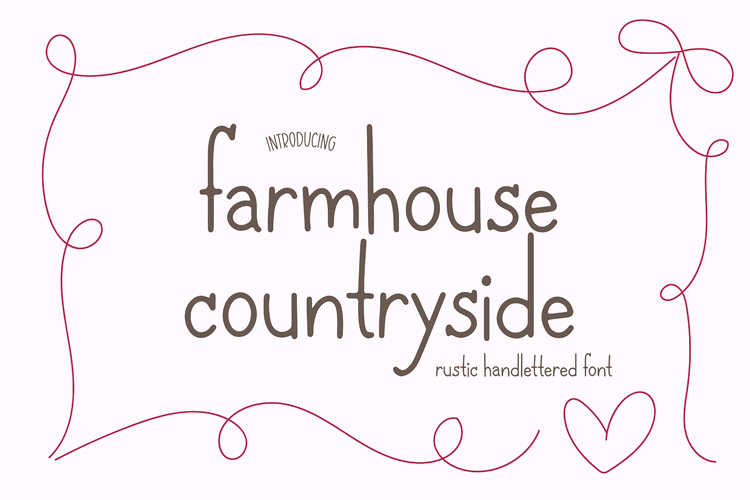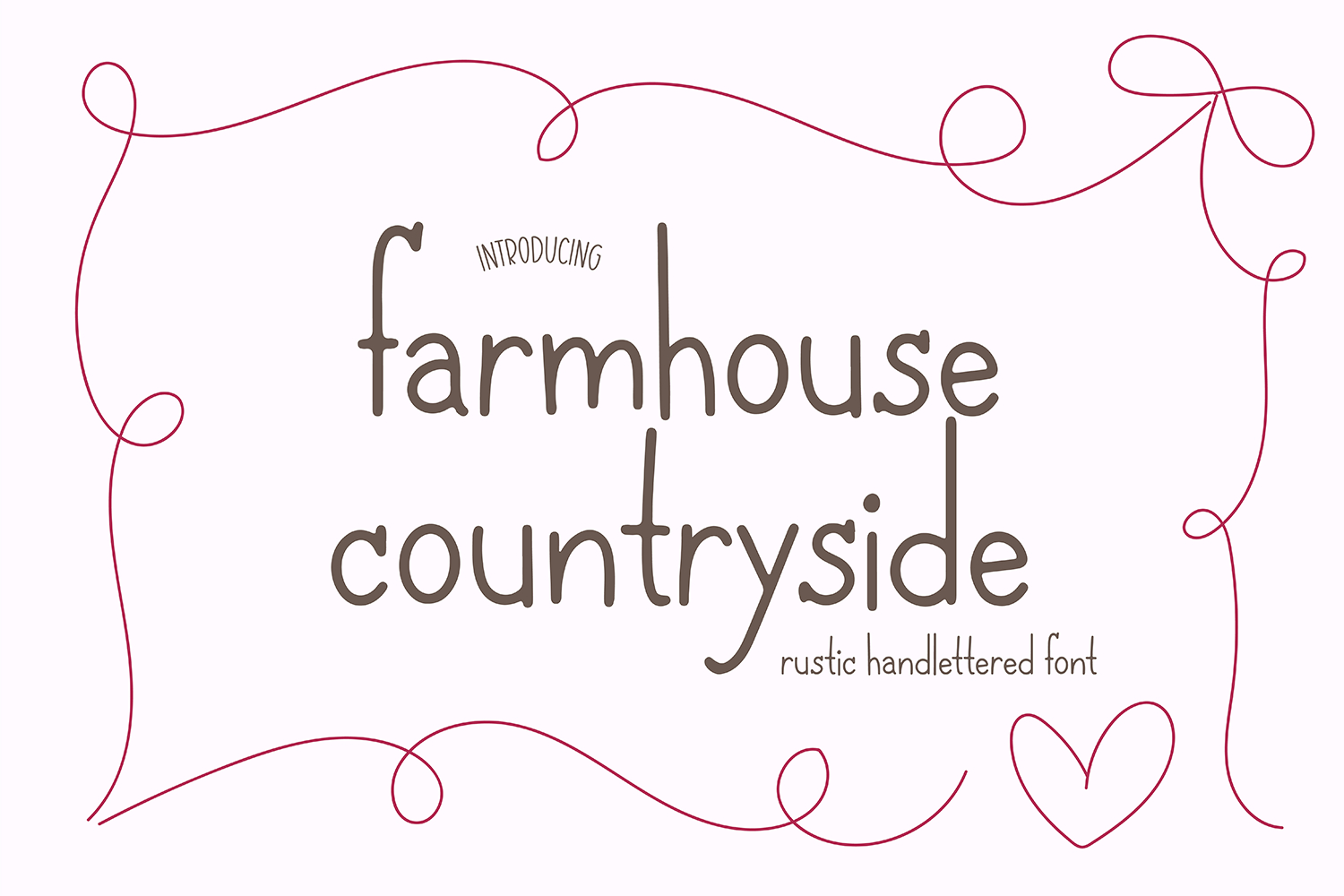
"Farmhouse Countryside" handwriting font.
Farmhouse Countryside is a cute handwriting font that is perfect for social media or crafty projects. Use it for branding, crafts for decor, invitations, and more! This font includes upper and lowercase glyphs, numbers, basic punctuation marks.